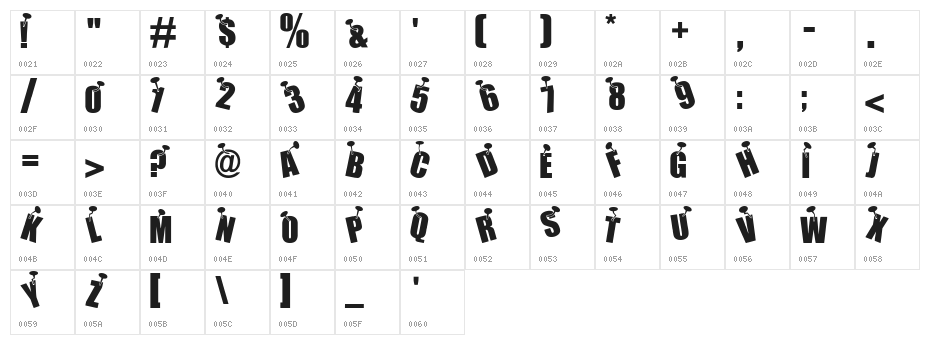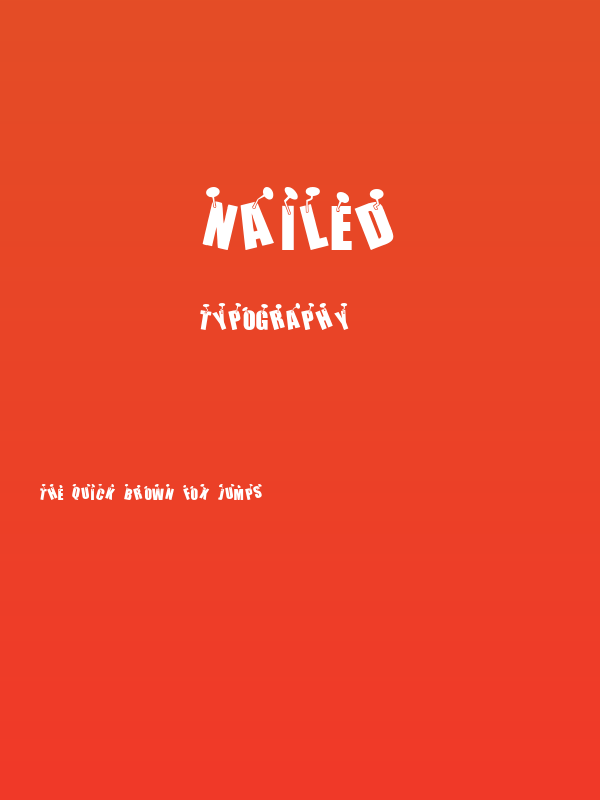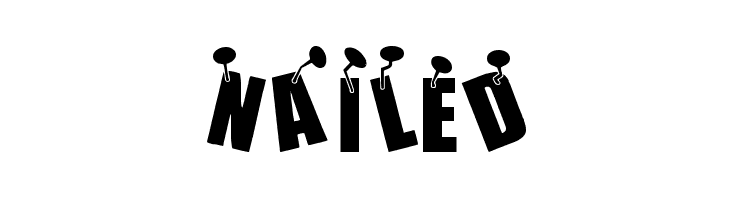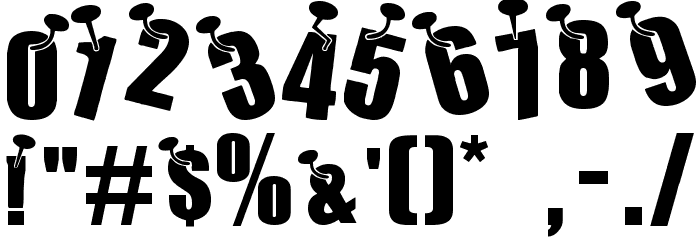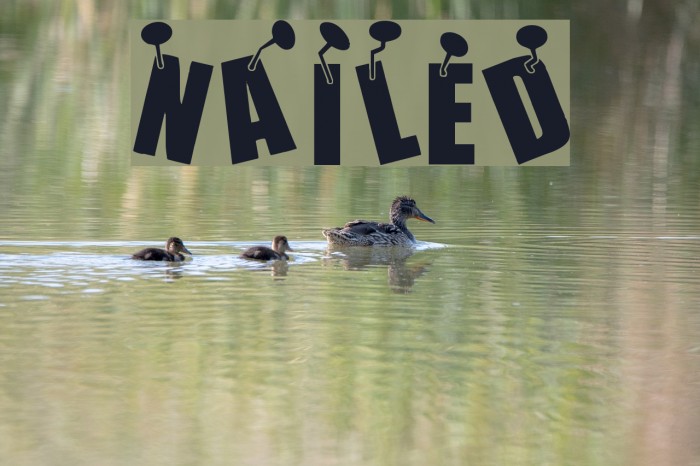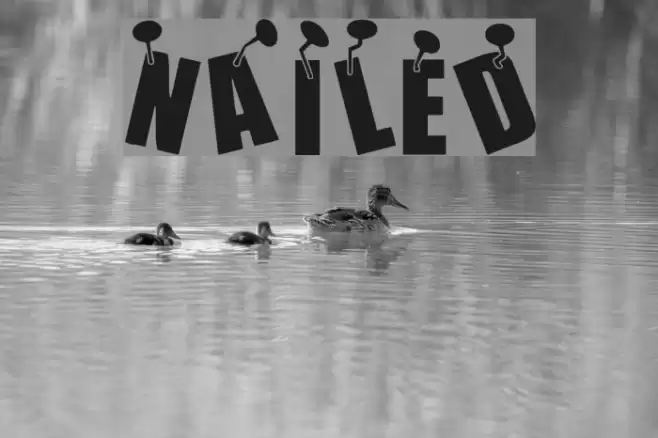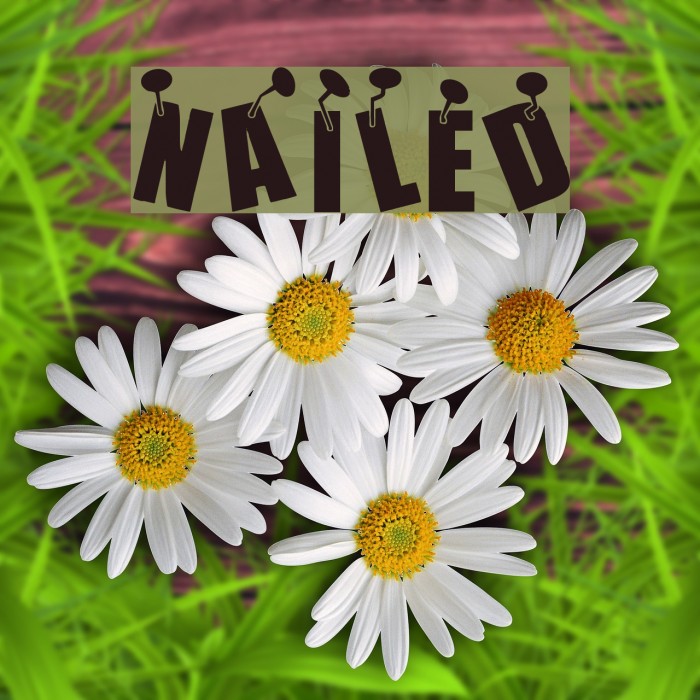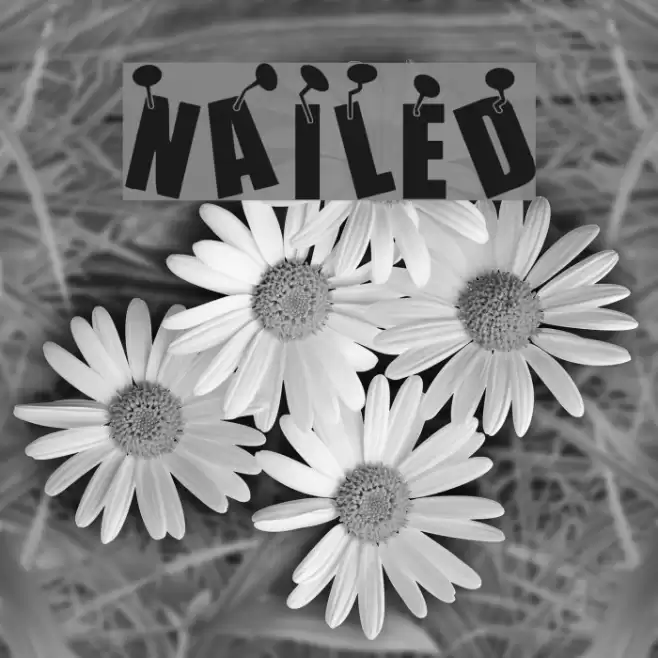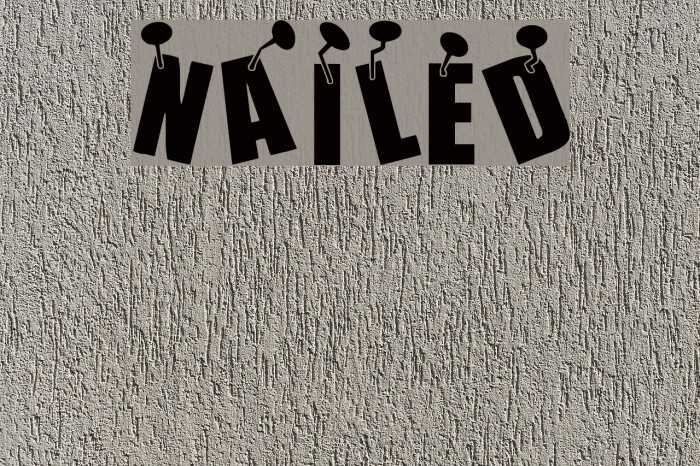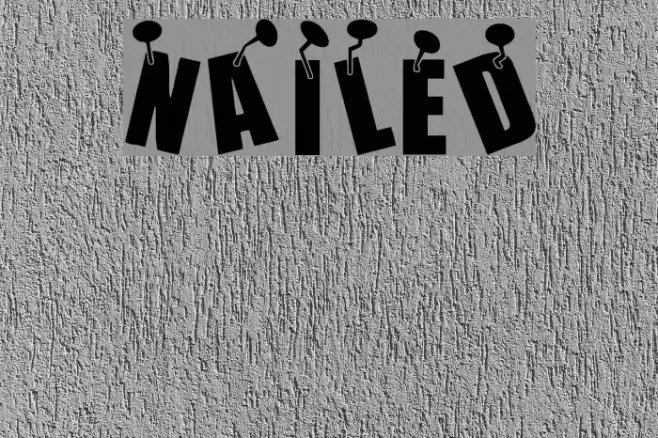
NAILED Font
NAILED Description
This playful and bold font features letters that appear to be pinned up with pushpins, giving it a unique and whimsical look. The characters are uppercase and lowercase, with numbers and a selection of special characters. Each letter is designed with a slight tilt, enhancing the casual and fun aesthetic. The font's thick strokes and solid black fill make it highly legible and eye-catching. The playful design is perfect for projects that require a touch of creativity and humor, such as children's books, posters, or party invitations.
| Overall Style | Playful, Whimsical |
| Use Case | Headlines, Posters, Creative Designs |
| Proposed Projects | Children's books, party invitations, playful posters, creative branding. |